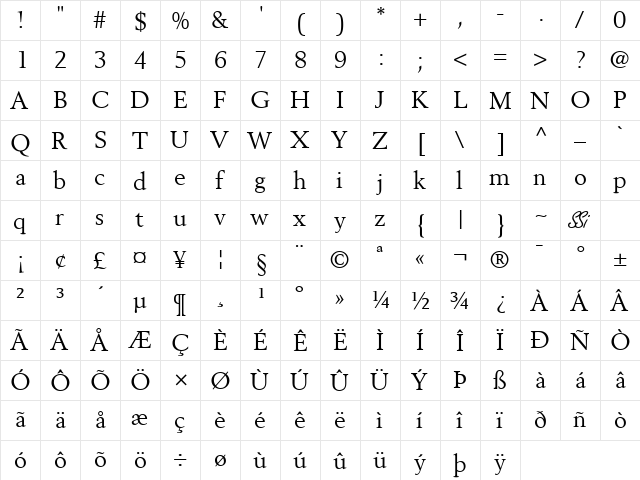
Cortex SSi Regular
Design Context for Cortex SSi Typeface
Cortex SSi takes a measured approach to typography — its balanced proportions and neutral character make it a reliable workhorse for both digital and print work.